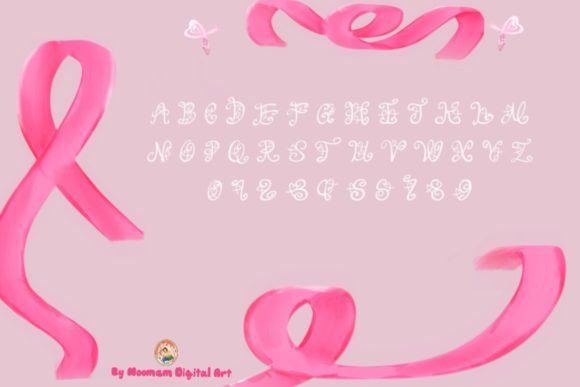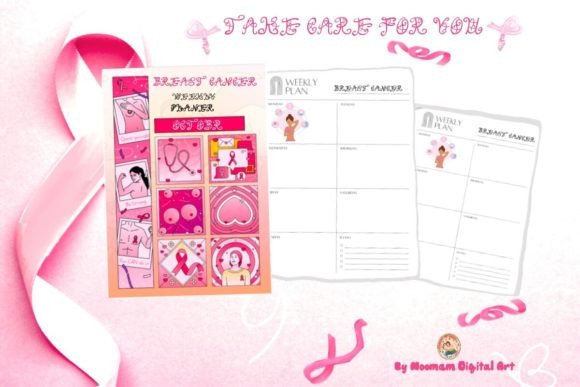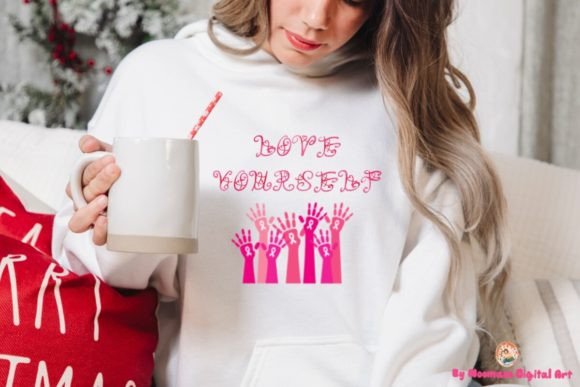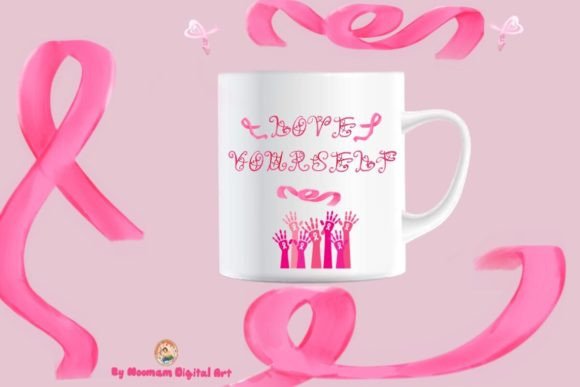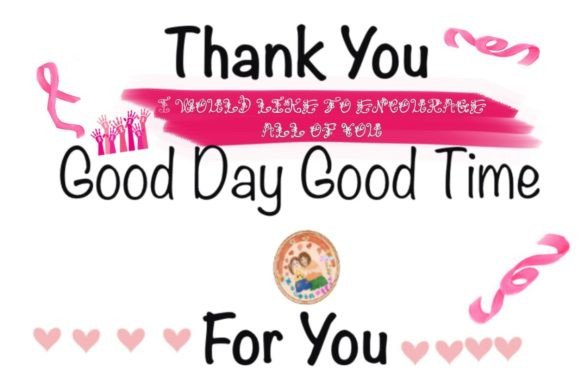
Care Heart Font: The Ultimate Motivation for Designers and Crafters
Are you a designer or crafter looking for a font that embodies the strength and resilience of a woman’s spirit? Look no further than the Care Heart Font. This beautiful font is not only visually stunning but also carries a powerful message of motivation and inspiration. In this article, we’ll explore the world of Care Heart Font and discover how it can elevate your designs and projects to new heights.
The Power of Care Heart Font
Care Heart Font is more than just a font – it’s a symbol of motivation and strength. The font’s unique design and elegant curves make it perfect for a wide range of projects, from professional branding designs to casual social media posts. With Care Heart Font, you can add a touch of sophistication and inspiration to your work, making it a must-have for designers and crafters alike.
One of the best things about Care Heart Font is its versatility. Whether you’re working on a professional project or a casual design, this font fits seamlessly into any style or theme. Here are some of the many ways you can use Care Heart Font:
- Branding designs: Create stunning logos, labels, and business cards that exude professionalism and sophistication.
- Websites: Add a touch of elegance to your website with Care Heart Font, perfect for headings, titles, and quotes.
- Packaging: Make your product packaging stand out with this beautiful font, ideal for labels, tags, and instructions.
- Posters and flyers: Create eye-catching posters and flyers that grab attention and inspire action.
- Social media posts: Add a motivational touch to your social media posts, quotes, and stories.
- Invitations and special occasions: Make your invitations, greeting cards, and special occasion cards truly special with Care Heart Font.
Why Designers and Crafters Love Care Heart Font
So, what makes Care Heart Font a favorite among designers and crafters? Here are just a few reasons:
- Unique and eye-catching: Care Heart Font is unlike any other font out there. Its distinctive design and elegant curves make it a standout in any project.
- Motivational and inspiring: The font’s message of strength and resilience is perfect for designers and crafters who want to inspire and motivate their audience.
- High-quality: This font is designed with high-quality and clarity in mind, ensuring that it looks stunning in any project.
Tips for Using Care Heart Font
Now that you know how amazing Care Heart Font is, here are some tips for using it effectively in your designs:
- Pair it with complementary fonts: Combine Care Heart Font with other fonts that complement its style and elegance.
- Experiment with colors: Try out different colors and color combinations to find the perfect match for your design.
- Use it sparingly: While Care Heart Font is stunning, it’s best to use it sparingly to avoid overwhelming your design.
- Make it bold: Don’t be afraid to make Care Heart Font bold and eye-catching, perfect for headings and titles.